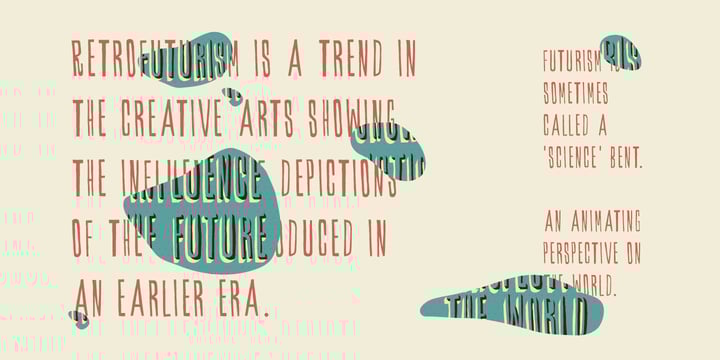
YWFT Shade
YWFT Shade by YouWorkForThem
YWFT Shade Font Family was published by YouWorkForThem. YWFT Shade contains 4 styles and family package options. More about this family
About YWFT Shade Font Family
YWFT Shade is an original Jeff Rodgers handset design, now converted into a working system font by the designers at YouWorkForThem. All the inlines, drop shades, and outlines of the original artwork has been preserved with great attention to detail. Fans of that hand-sketched simplicity will want to grab some of the artisanal primitive impact of YWFT Shade!